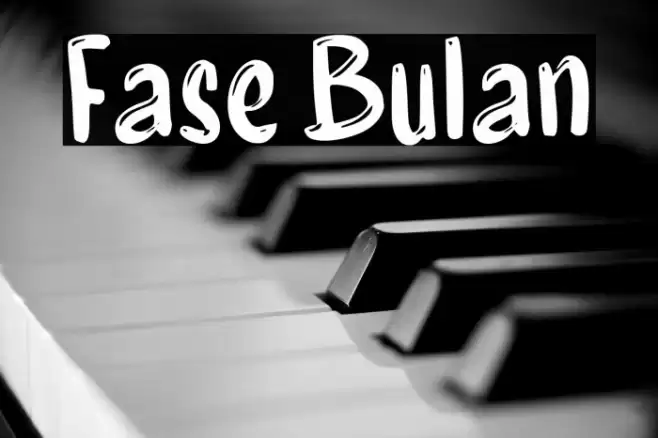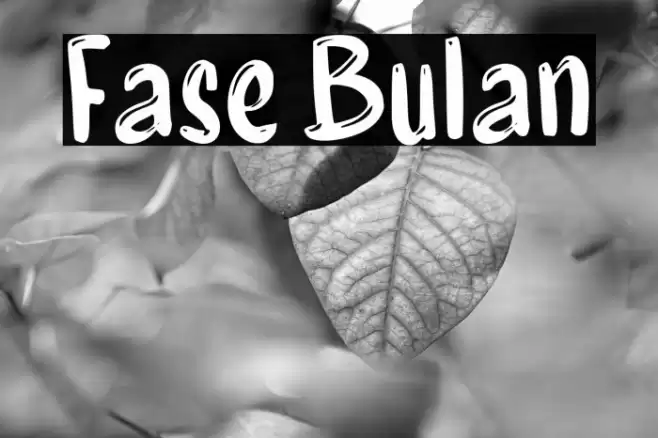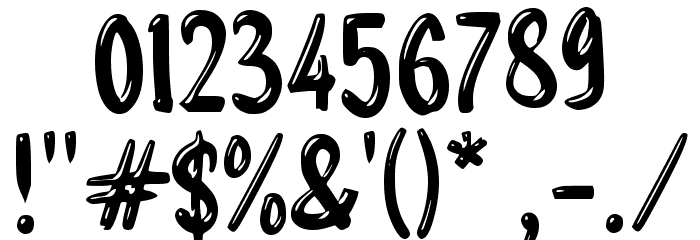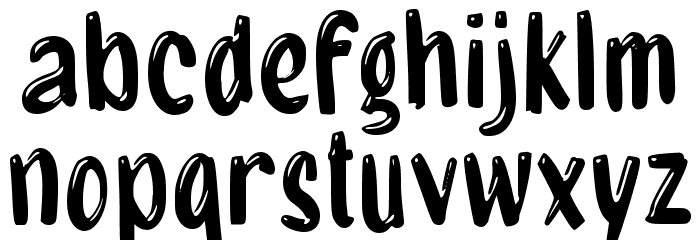
Fase Bulan Font
Fase Bulan Description
This font exhibits a playful and dynamic handwritten style, characterized by its bold and slightly irregular strokes. The letters have a casual, friendly appearance with a slight slant, adding to the informal feel. The uppercase and lowercase letters maintain a consistent style, with rounded edges and varying stroke widths that give a lively and energetic vibe. The numbers and special characters follow the same aesthetic, ensuring a cohesive look across all elements. This font's unique personality makes it stand out, perfect for projects that require a touch of creativity and fun.
A bold, playful handwritten font with a lively and informal style from Uncategorized fonts.
- Proposed Projects: Ideal for greeting cards, children's books, playful branding, and social media graphics.
- Overall Style: Playful
- Use Case: Logos, Headlines, Posters